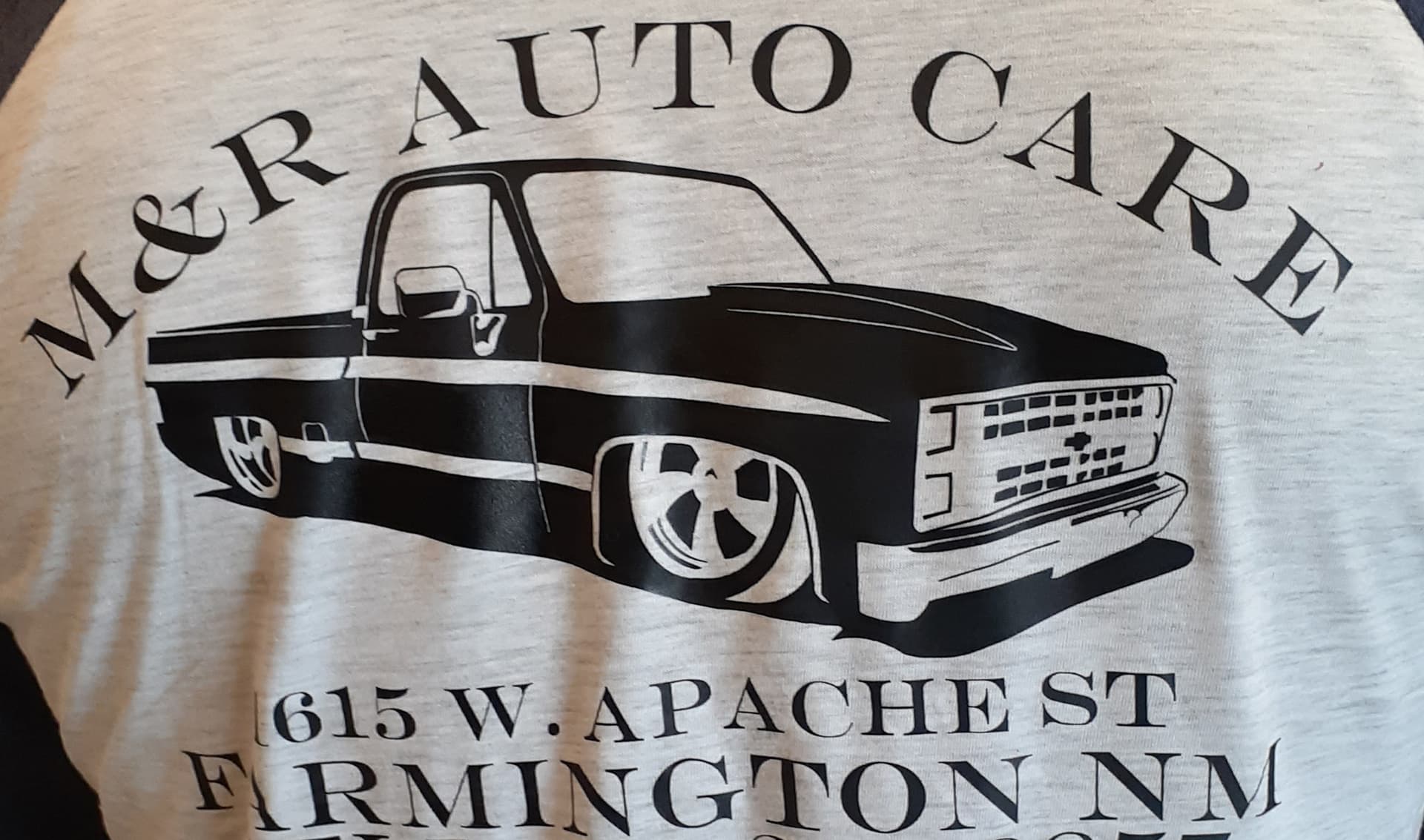
Matcherator came up short again. Thought I found a couple close, but nothing matches that I’ve seen. Cutout on the leg of the R should make this one memorable to those that know.
that’s da good ol’ Engravers, the classic business card and/or tombstone font.